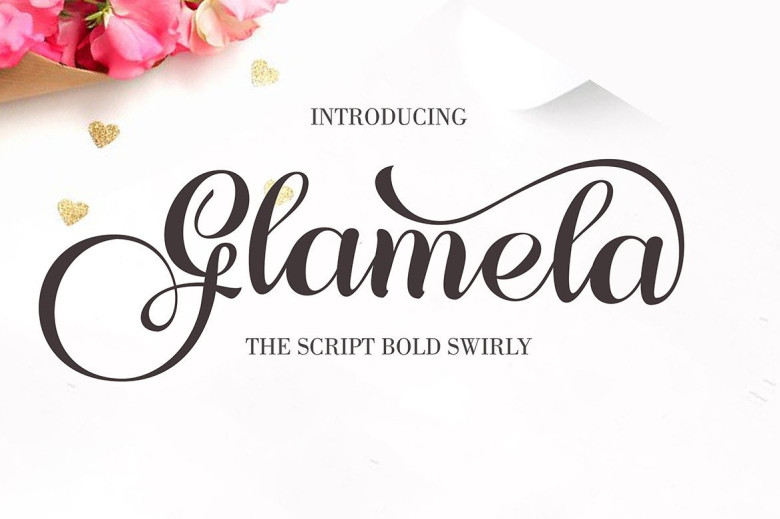
Glamela Font
Glamela is a modern calligraphy script font, the newest one you can get now! With an updated hand calligraphy model with special glyphs that have been given a combination of fantasy and handwritten ink.
This font will look beautiful on all designs, Wedding designs, branding materials, blog titles, quotes and invitations, and business cards. This font is PUA encoded, which means you can access all of the glyphs and swashes with ease!
Glamela Calligraphy Font